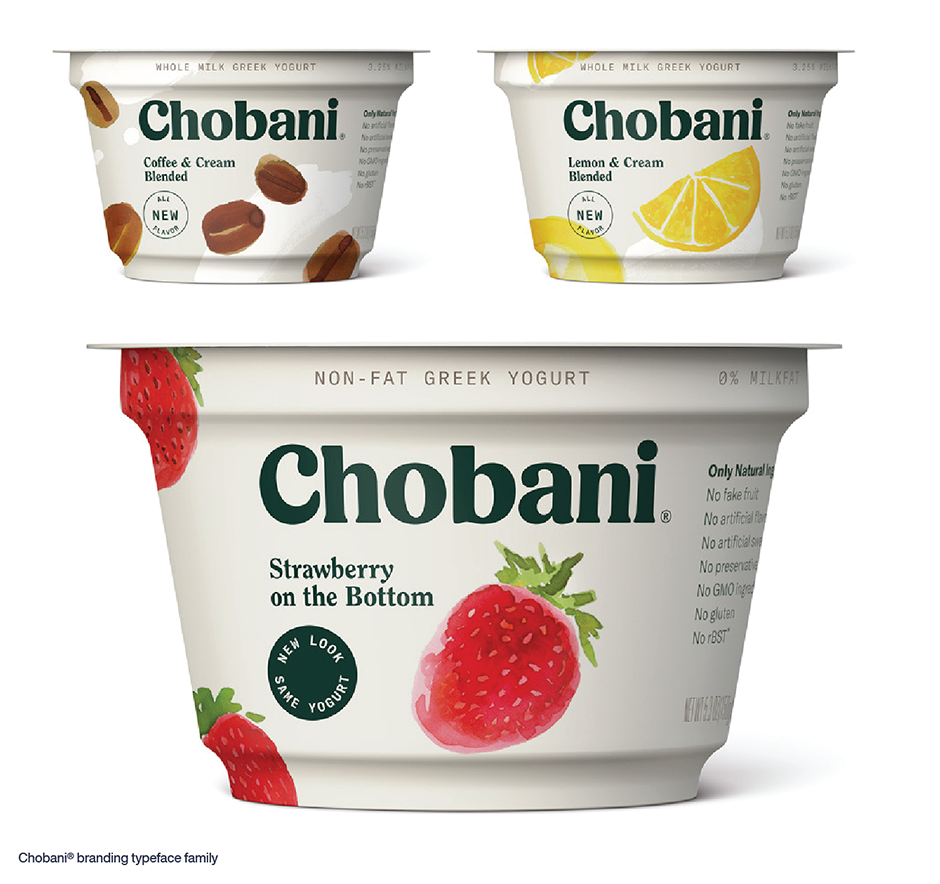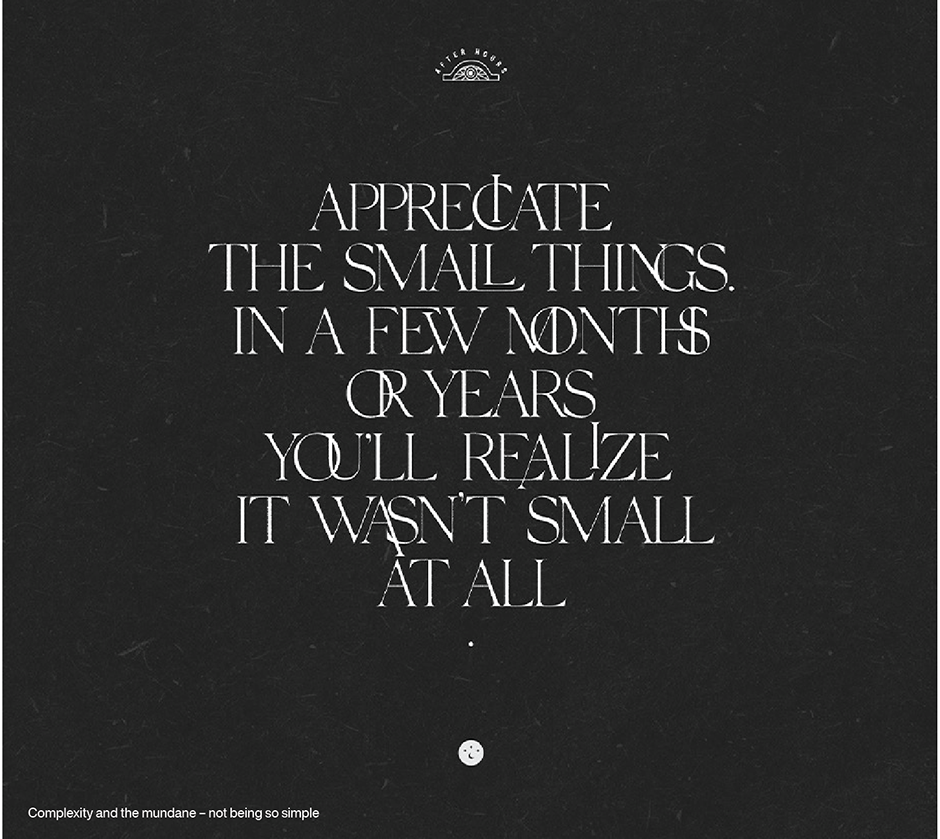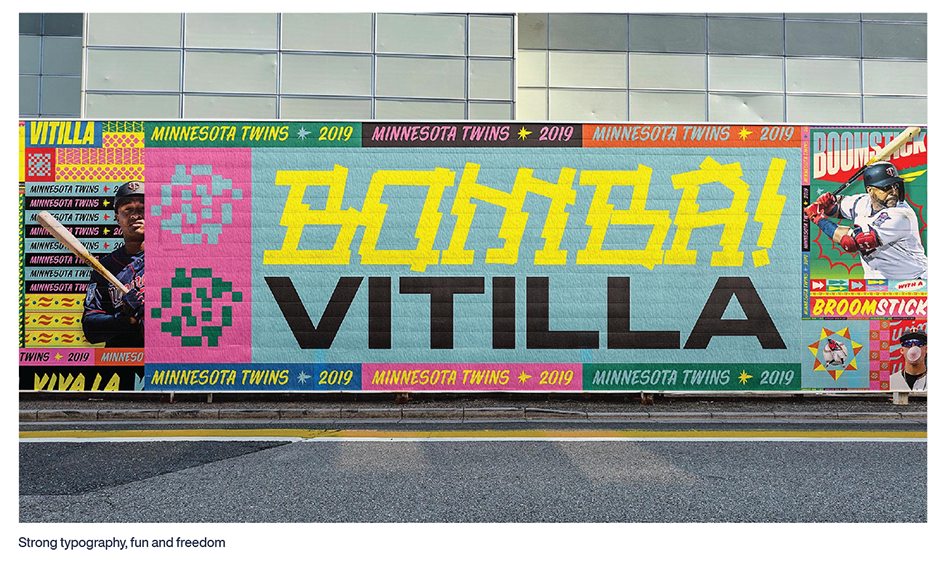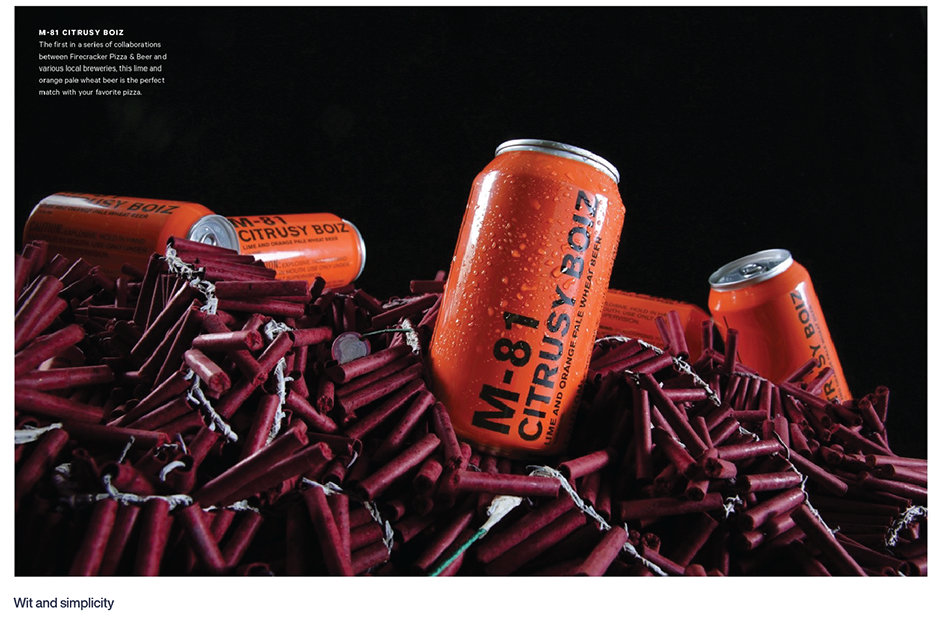
Type Trends: 2021 Q1 Trends by Katy & Milton
“ Our job, as designers, is to sit high-up, in a crows-nest, and see what’s happening around us. Then, fill our minds with inspiration.” ”
Katy Fischer, Executive Creative Director at TOKY
As a graphic communicator, your work needs to stand out in a heavily manufactured visual culture. You need to intrigue people, create art as well as utility and build consistent brand without it becoming static. Type can do this.
“ It’s important to recognize that the work we put forth is a reflection of the time and experience we are living at the moment. We could all use some warmth, some dreaming, some beauty – something smile worthy. ”
Milton Un, Design Director at Carmichael Lynch
Meet Katy and Milton
To find out how, we reached out to Katy Fischer and Milton Un – both judges in last year’s Communication Arts magazine’s Typography Competition.
Katy Fischer is a graduate of Drake University and moved to St Louis, Missouri shortly after valediction. Her first design gig there, was at a small “mom & pop” design studio. In 2004 she went to work at TOKY as a senior designer, and has been there ever since. The reason she’s been there so long? “TOKY has always given me the opportunity to do amazing work,” she explains. Clearly true. Katy is one of the country’s most awarded creatives.
Milton Un graduated from the Minneapolis College of Art and Design, and has worked in the Minneapolis area at several agencies. He was design director at Target Corporation before joining Carmichael Lynch, four years ago. “To me purpose and intention,” Milton says, “are the most important things to achieve in design.” He brings this vision to clients as diverse as Nike, Apple, ESPN, Adidas, Pentagram and Red Bull.
Like Minds
Not surprisingly, Katy and Milton are in-sync with what’s happening with type and typography today. They both say that sites like Instagram and Underconsideration are great places to view cutting-edge typographic design. They also see 70s nostalgia and Victorian typefaces as a significant direction. On the flip-side, they say that typographic wit, design authenticity and simplicity is becoming more important.
If you’re looking for 70s nostalgia and Victorian typefaces, a simple search on MyFonts will quickly reveal scores of designs like Data 70TM, RobertaTM and Rumble Brave Vintage Fonts.
Chobani® Effect
In addition, Katy and Milton both contend that something called the “Chobani® Effect” (a term Katy coined) is clearly driving a lot of typeface choices.
A little over three years ago, the folks at Chobani yogurt released a complete redesign of its branding – including new bespoke typefaces, to replace the existing designs. The typefaces could be described as the love child of Windsor™ and ITC Souvenir®. According to Katy, “The Chobani typeface family is approachable and friendly – but not sappy. It’s a little quirky. If it were a person, it would be someone you’d want to hang-out with.” While Windsor and Souvenir date back to the early 20th century, there are plenty of new takes on this genuinely friendly vibe. Boston Angel, Gazpacho, Quincy CF and Recoleta are just four of a bevy of Chobani Effect typefaces available from MyFonts.
Milton echoes Katy’s thoughts and suggests a couple of other designs. “For a while now there’s been a trend of warm and friendly fonts and graphic design in fashion and branding that I’ve enjoyed. Designers and typographers looking to the fun of Cooper Black™ and Hobo™ variants, and expressive typography.”
“The Twins mural is really a mixture of all this,” Milton continues. “We took strong typography that is synonymous with sports and hard work, and mixed it with a spirit of fun and freedom. We made it textural, abstract, bouncy and playful at the same time. Letterforms became illustrative elements to merge and stretch to push messaging that might be boring, and gave them a new life. I think there’s a spirit in there that is birthed from a few pasts, and ultimately created something new.”
Wit and Simplicity
“We like to create typography with wit and simplicity,” says Katy. “The M80 Project for a Firecracker Pizza & Beer is a perfect example. Too often, beverage branding tries to tell a story through overdesign and illustration. The branding of M80 beer says, ‘I’m a can of beer that looks like a stick of dynamite. It’s not trying too hard – and it has wit.”
Lubalin and Carnase Influences
Type as image, type as texture, type that frames, typographic compositions reminiscent of old badge work, typographic compositions reminiscent of psychedelia… there’s really so many ways we’re seeing designers use type,” explains Milton. “At the same time, there’s some really beautiful simple use of type as well…minimal and airy. The typographic play in the Small Things poster is really an illustration of complexity and the innerworkings of the mundane not being so simple. The phrase itself is a calming life lesson; but the way the letterforms intersect, affect, and rely on each other is symbolic of how the universe works to make those moments come to life.”